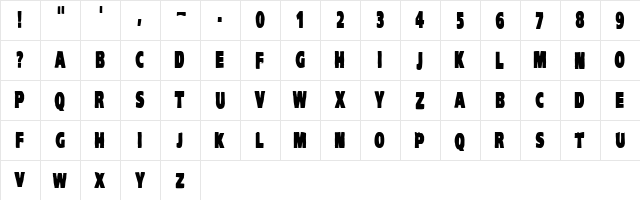
VTC-KomikaHeadLinerOne Bold Font Preview
VTC-KomikaHeadLinerOne Bold
VTC-KomikaHeadLinerOne Bold Font Details
| Foundry | WolfBainx - Larry E. Yerkes, Vigilante Typeface Corporation. |
| Designer | WolfBainx - Larry E. Yerkes, Vigilante Typeface Corporation. |
Design Context for VTC-KomikaHeadLinerOne Typeface
VTC-KomikaHeadLinerOne is a composed and adaptable typeface that performs quietly and consistently across a wide range of design contexts. Its bold stroke weight gives it real presence on the page.